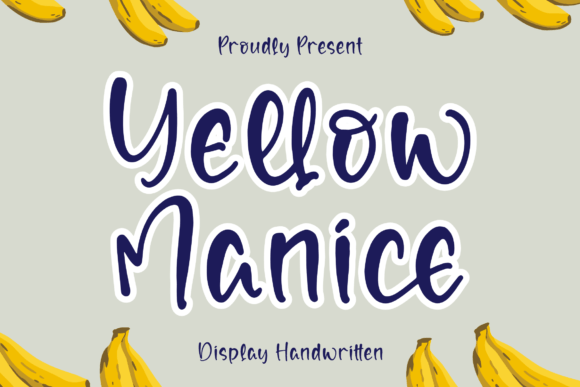
Prepare yourself to delve into the world of Yellow Manice, a script font family that will ignite your creativity and transform your designs into captivating works of art. This extraordinary font is the brainchild of Perspectype, renowned for their ability to breathe life into digital letters. Yellow Manice is not just a font; it's an invitation to explore a world of limitless possibilities, where your imagination takes center stage.
With its playful and cheerful nature, Yellow Manice is the perfect font for adding a touch of whimsy to your designs. Whether you're creating stickers, labels, packaging, or cards, this font will bring a smile to the faces of your audience. Imagine the joy of receiving a gift wrapped in paper adorned with Yellow Manice's charming characters. The intricate details and flowing lines will create an unforgettable experience, leaving a lasting impression on the recipient.
Let your creativity soar as you explore the endless applications of Yellow Manice. Use it to design eye-catching posters that demand attention, or incorporate it into your Canva projects to create stunning visuals that will make your presentations stand out. The possibilities are boundless, and the only limit is your imagination.
Yellow Manice is more than just a font; it's an investment in your creative journey. With its versatility and charm, this font will become an indispensable tool in your design arsenal. Embrace the magic of Yellow Manice and watch as your designs transform into captivating works of art.